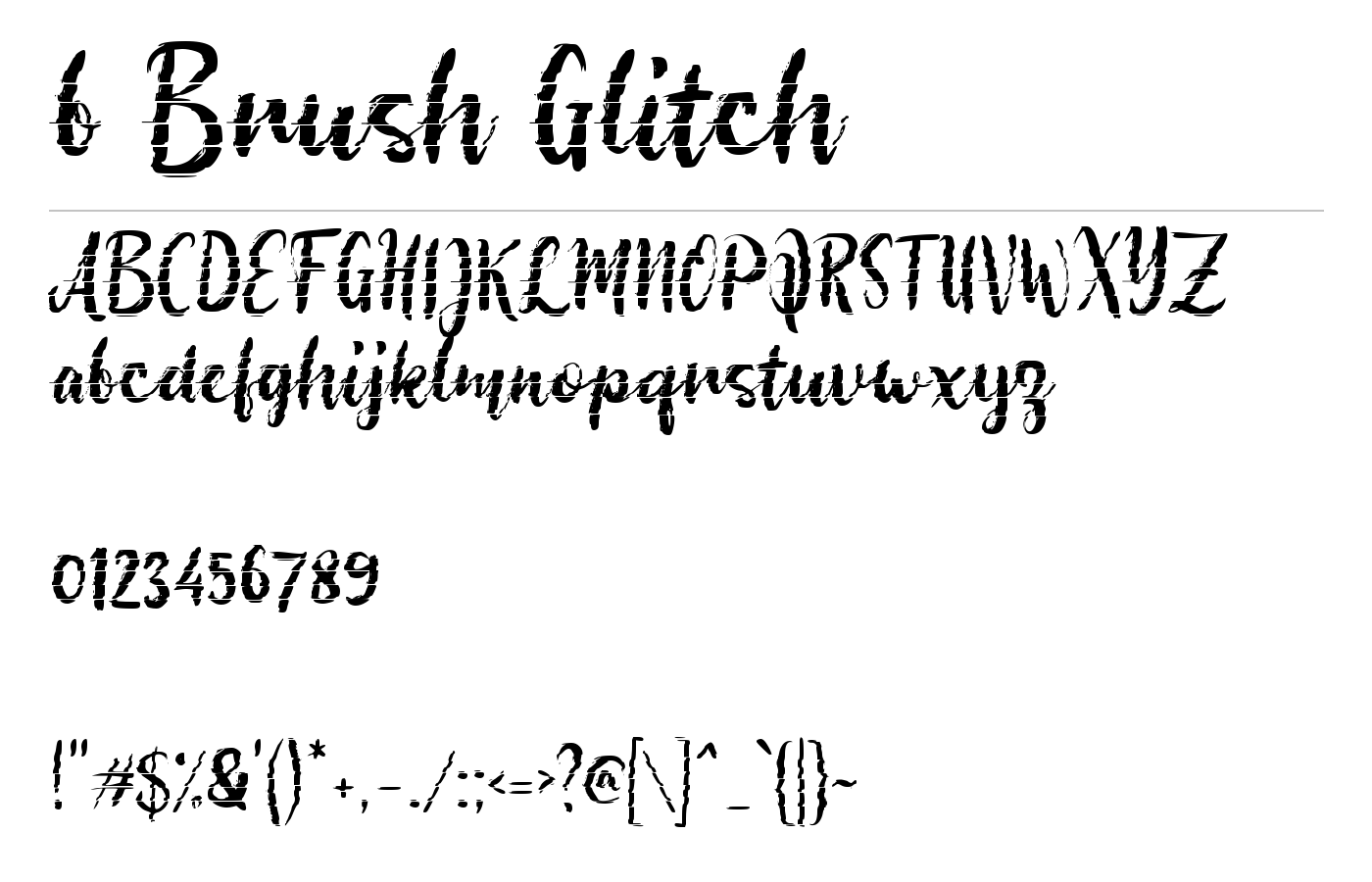
b Brush Glitch is a distinctive brush script font with a dynamic, hand-painted style that features a unique glitch effect, giving it a modern and edgy look. Its textured, irregular strokes and slanted letterforms bring a sense of movement and creativity, making it ideal for bold headlines, artistic branding, and eye-catching posters where a stylish, unconventional vibe is desired. This font blends expressive brushwork with digital distortion, perfect for projects seeking an adventurous and contemporary feel.
b Brush Glitch Font
About b Brush Glitch Font